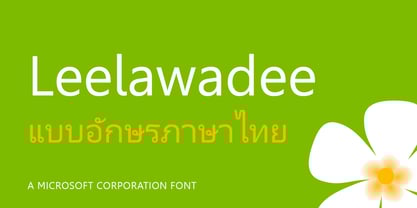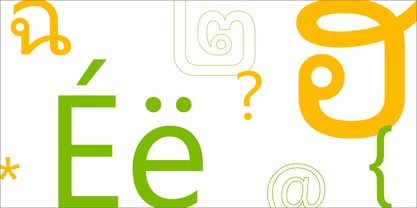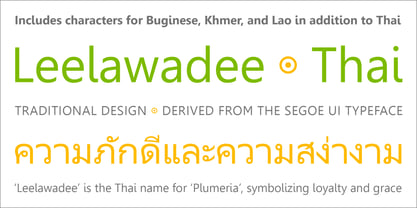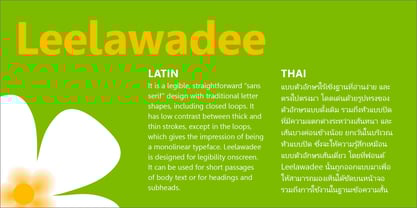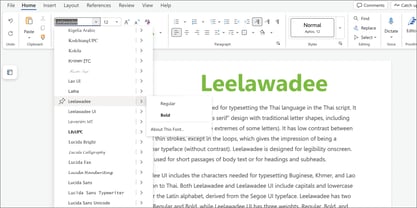
Leelawadee
The Leelawadee Font Family was designed by Microsoft and published by Microsoft Corporation. Leelawadee contains 2 styles and family package options. More about this family
Leelawadee is a Thai font licensed from Microsoft Corporation. The Leelawadee font is a legible sans serif that is good for User Interface design and on-screen applications. Leelawadee is a Thai script font and requires an application program that supports Thai scripts.
The Typography Group at Microsoft is responsible for both fonts and the font rendering systems in Windows. Since version 3.1 the primary font system built into Windows has been the TrueType system, licensed from Apple in a deal (with hindsight) remarkably beneficial to Microsoft. Working with Monotype, the Microsoft Typography Group produced fine TrueType versions of Arial, Times New Roman and Courier New, tuned to be extremely legible on the screen; these were all ready for the launch of Windows 3.1. Since then these core fonts have been developed to cover more and more of the world’s languages. In the mid-1990s under Robert Norton a program of truly new type designs was begun, using TrueType technology to render faithfully the bitmaps and outlines designed by Matthew Carter (Verdana, Georgia, Tahoma) and by in-house designer Vincent Connare (Trebuchet, Comic Sans). Until August 2002 these “core fonts” were offered freely over the Web, where they made an undoubtedly positive contribution in terms of legibility and font choice. In 1996 the OpenType initiative with Adobe was announced; this is touted as the end of the font wars’, whereby advanced multilingual text layout becomes available, native rendering of PostScript fonts becomes part of Windows 2000, and unwieldy font formats are rationalized. In 1998 the group announced ClearType. This is a very ingenious method to increase legibility on color LCD screens, individually targeting the 3 subpixels (red, green and blue) that make up each pixel. Such a leap forward in readability on these screens is a crucial element to the success of nascent eBook technology. Simon Daniels at the Group’s website keeps font fans and font developers up to date with most aspects of the digital typography scene, and communicates the technicalities of how fonts work in Windows. Updating us about the current (October 2000) activity of the Group, Simon notes: 1999 saw several members of the group leave to join Microsoft’s eBooks group. These included technical lead Greg Hitchcock, developers Beat Stamm and Paul Linerud as well as former Monotype hinters Michael Duggan and Geraldine Wade. The past twelve months has beeen a rebuilding period for the group, with numerous new hires [sic.] replacing earlier departures. The Group continues to provide font related services for Microsoft, and freely licensed tools and technology to the wider type development community. On August 12, 2002 Microsoft discontinued the free availability of the “core fonts”, noting that “the downloads were being abused” in terms of their end-user license agreements. Most commentators took this to mean the company objected to the fact that the fonts were being installed with Linux distributions.